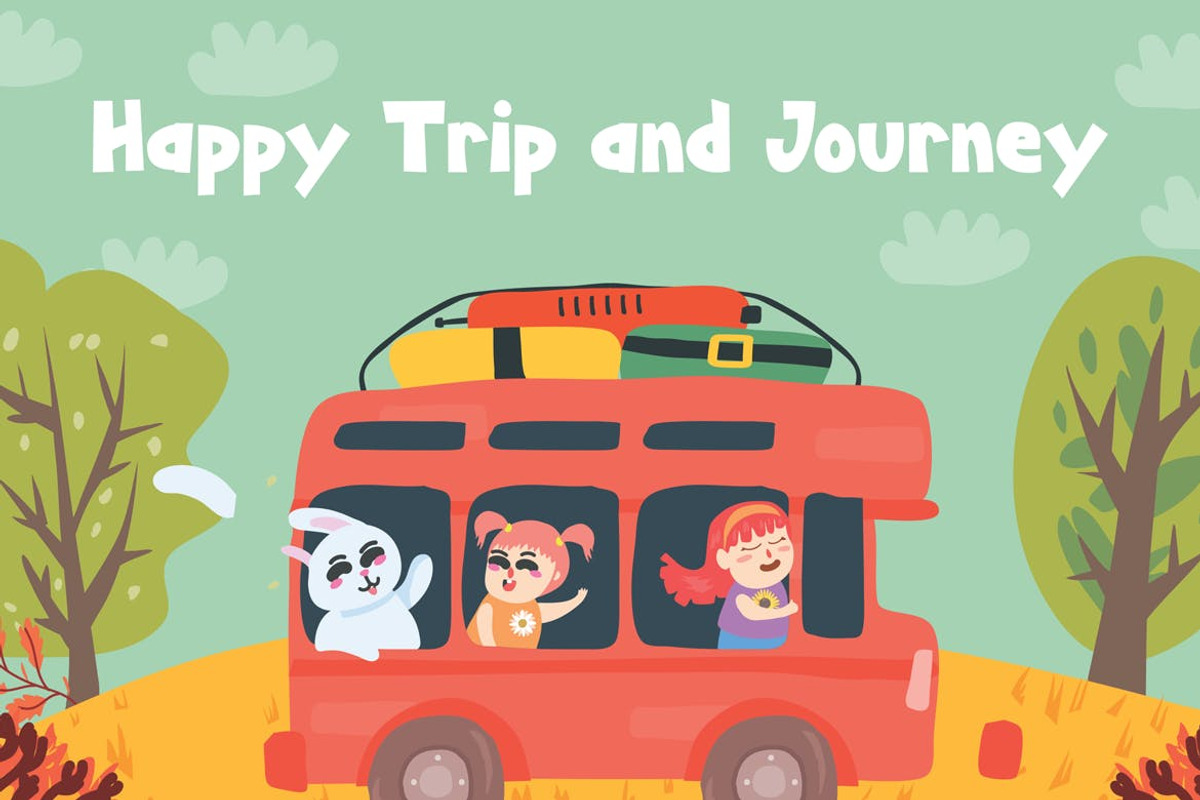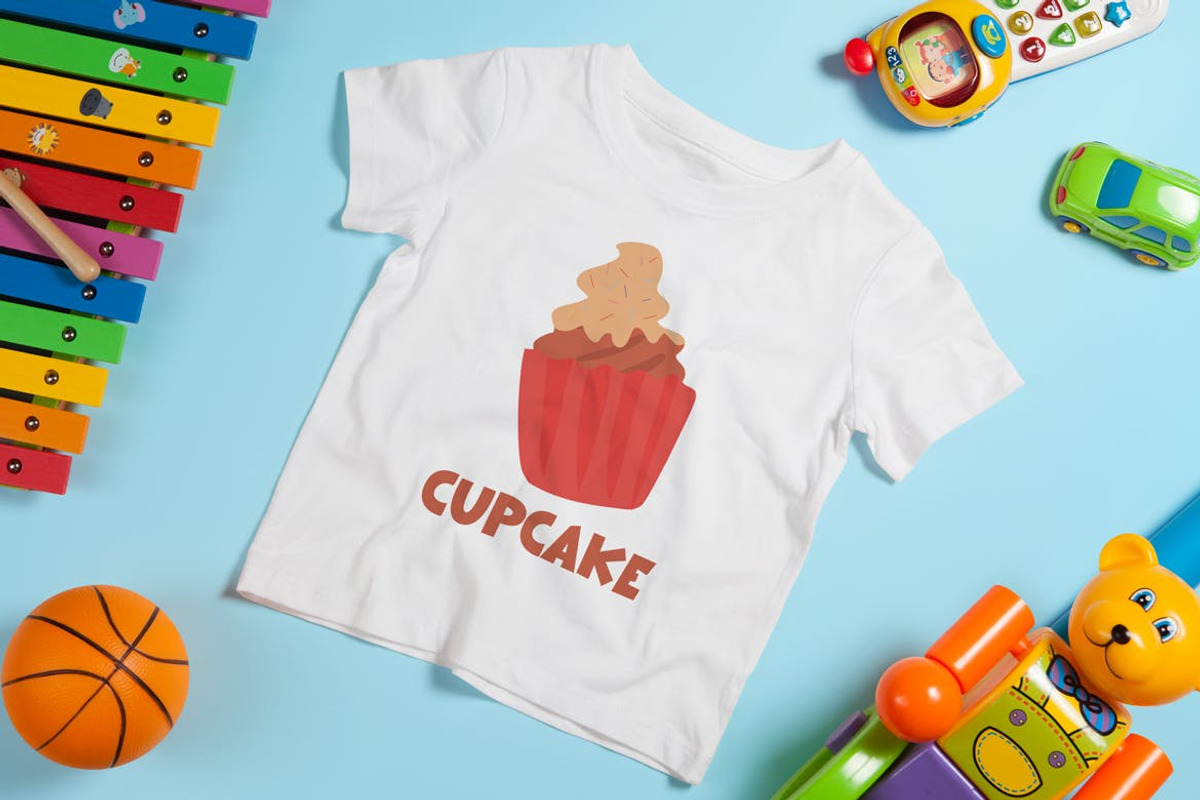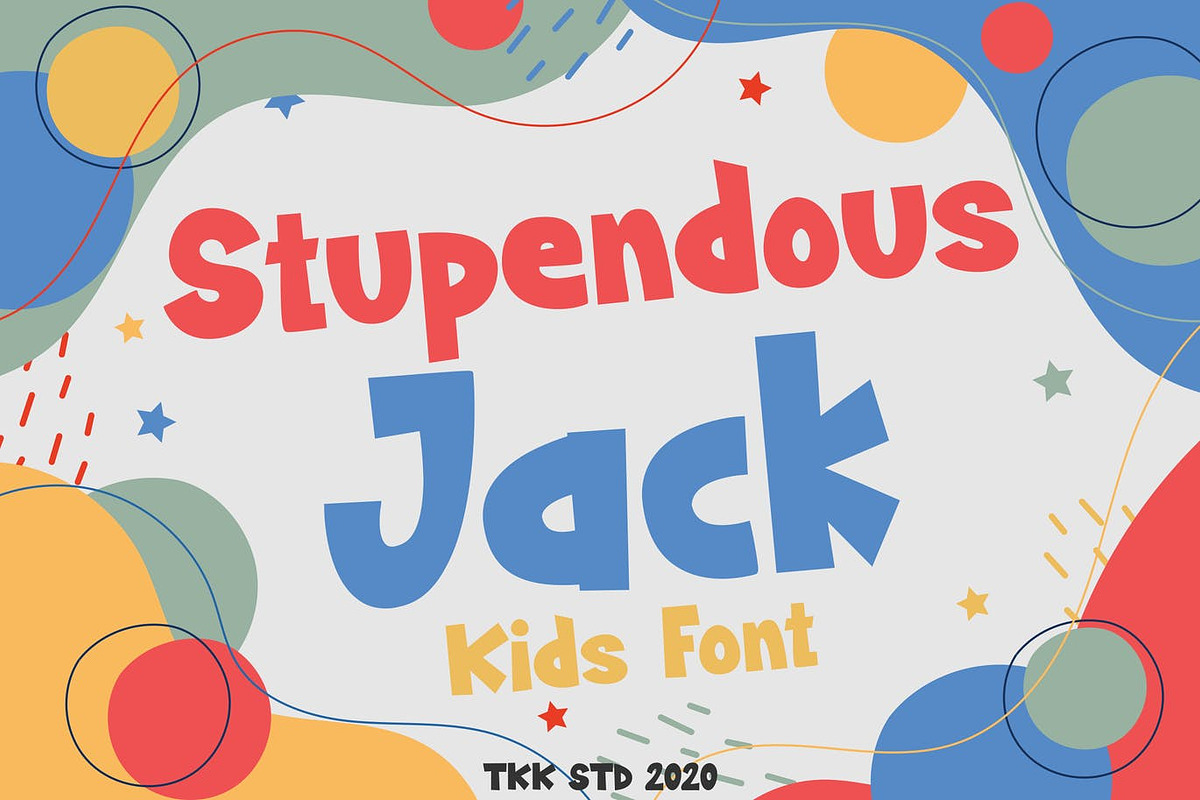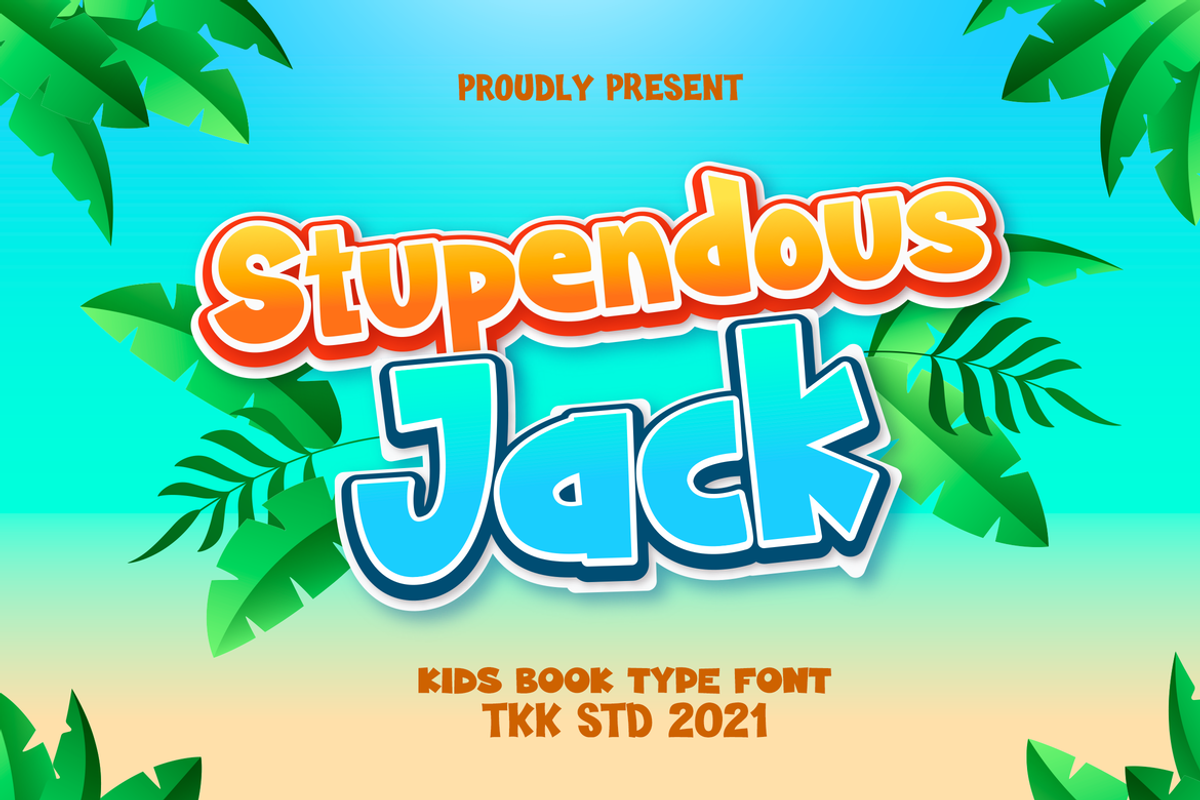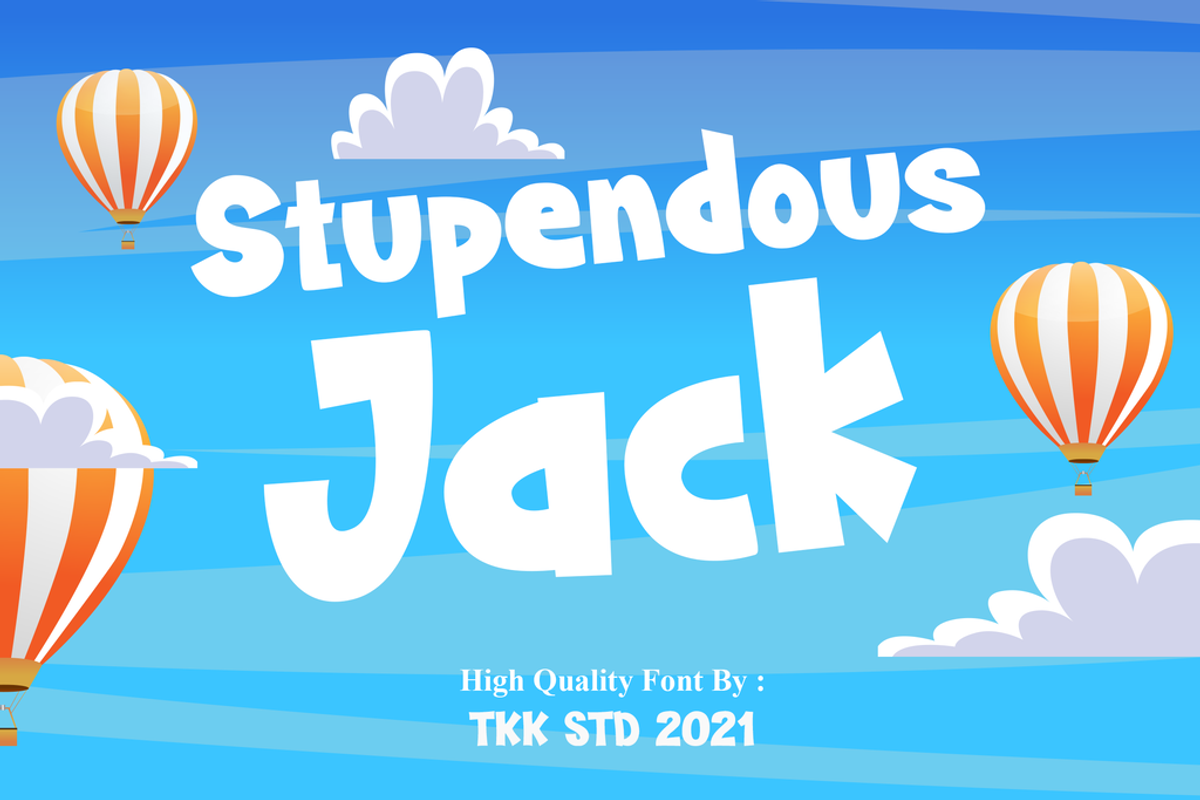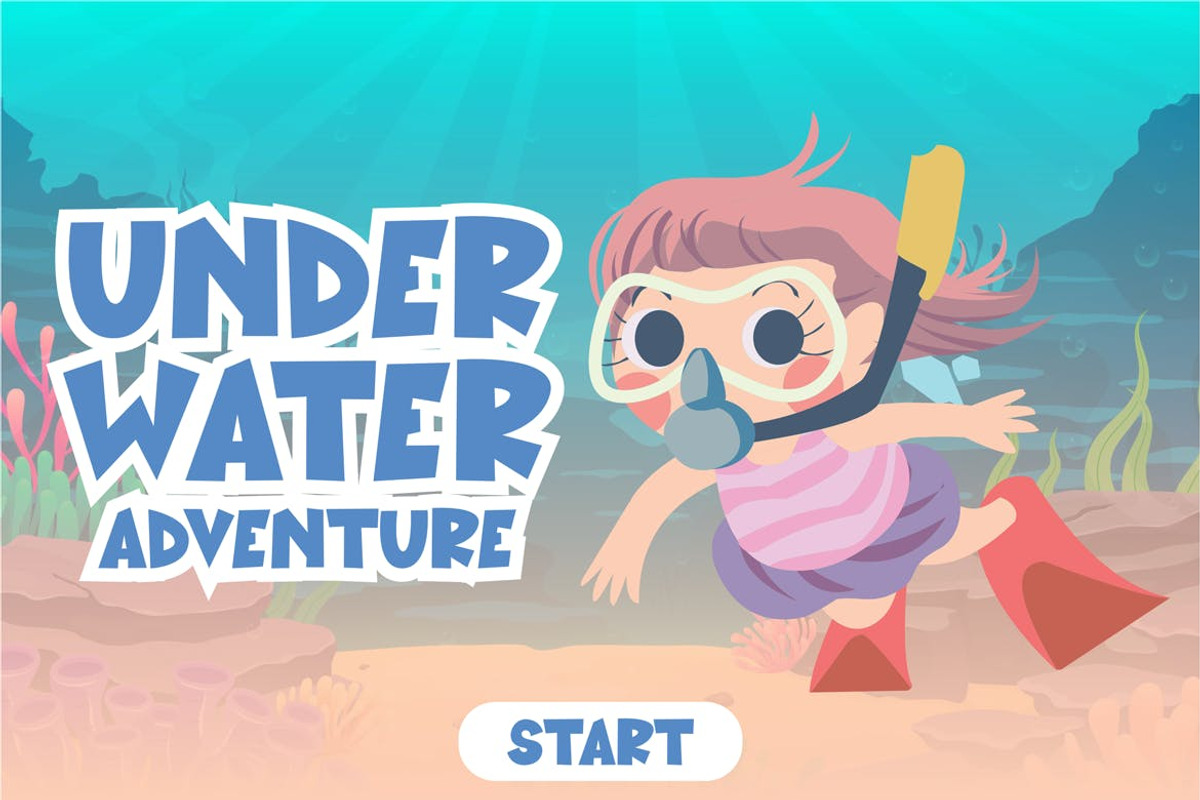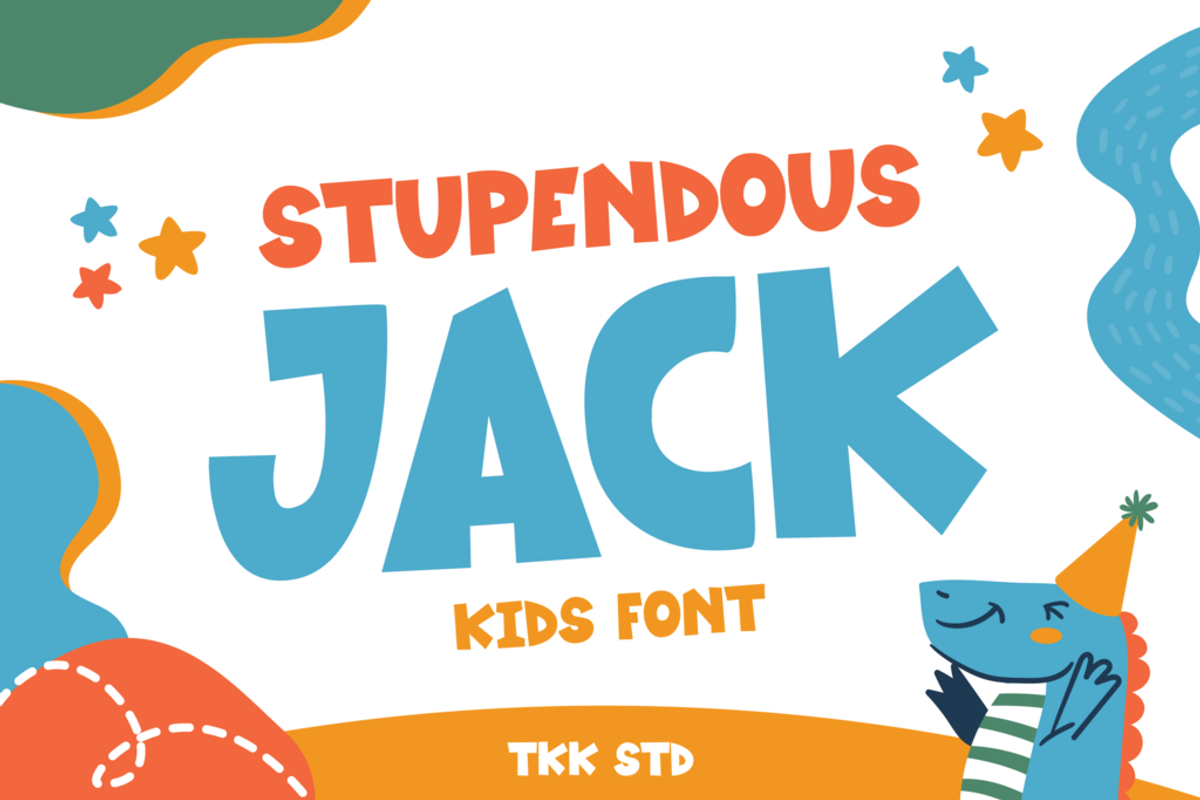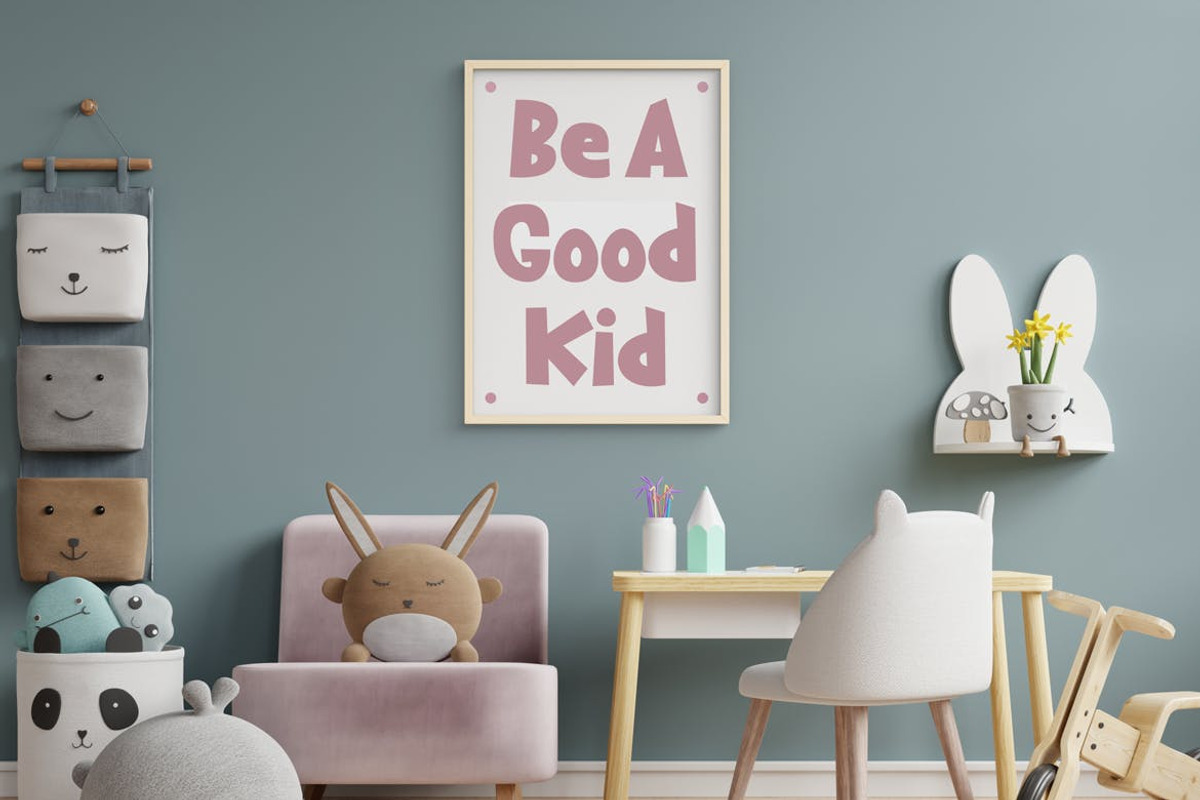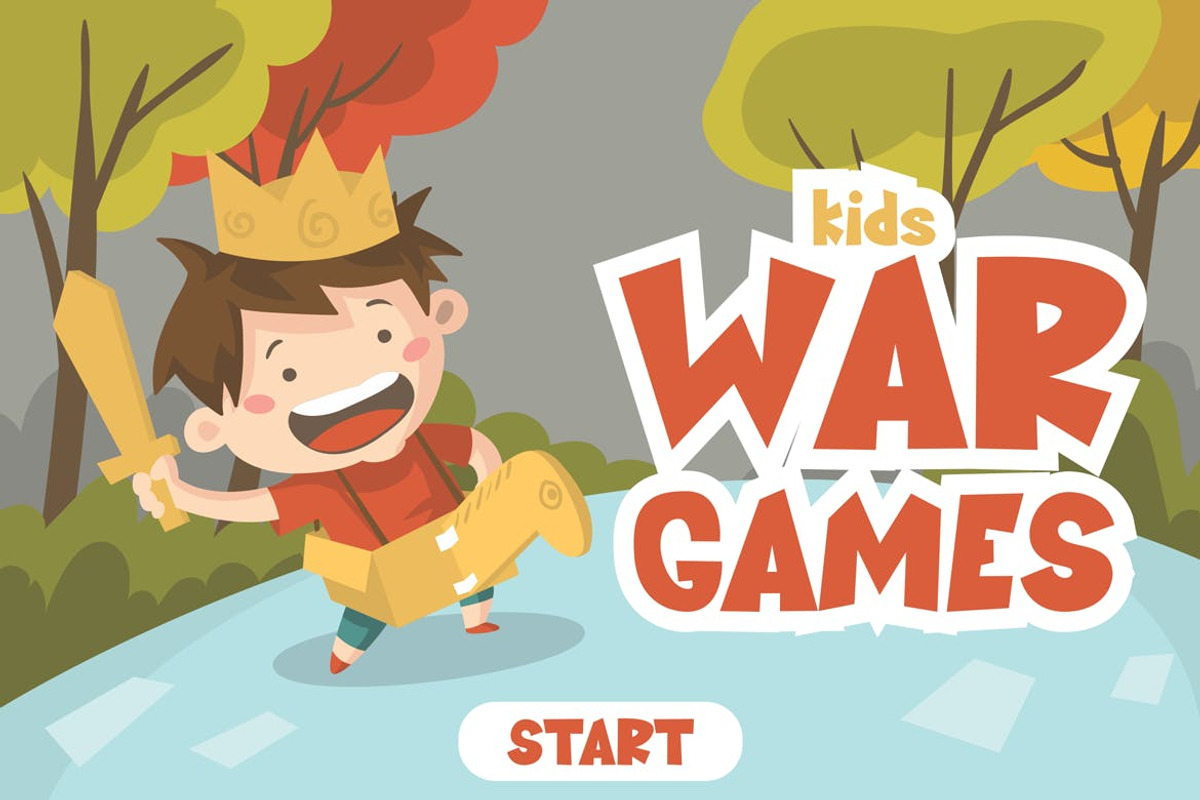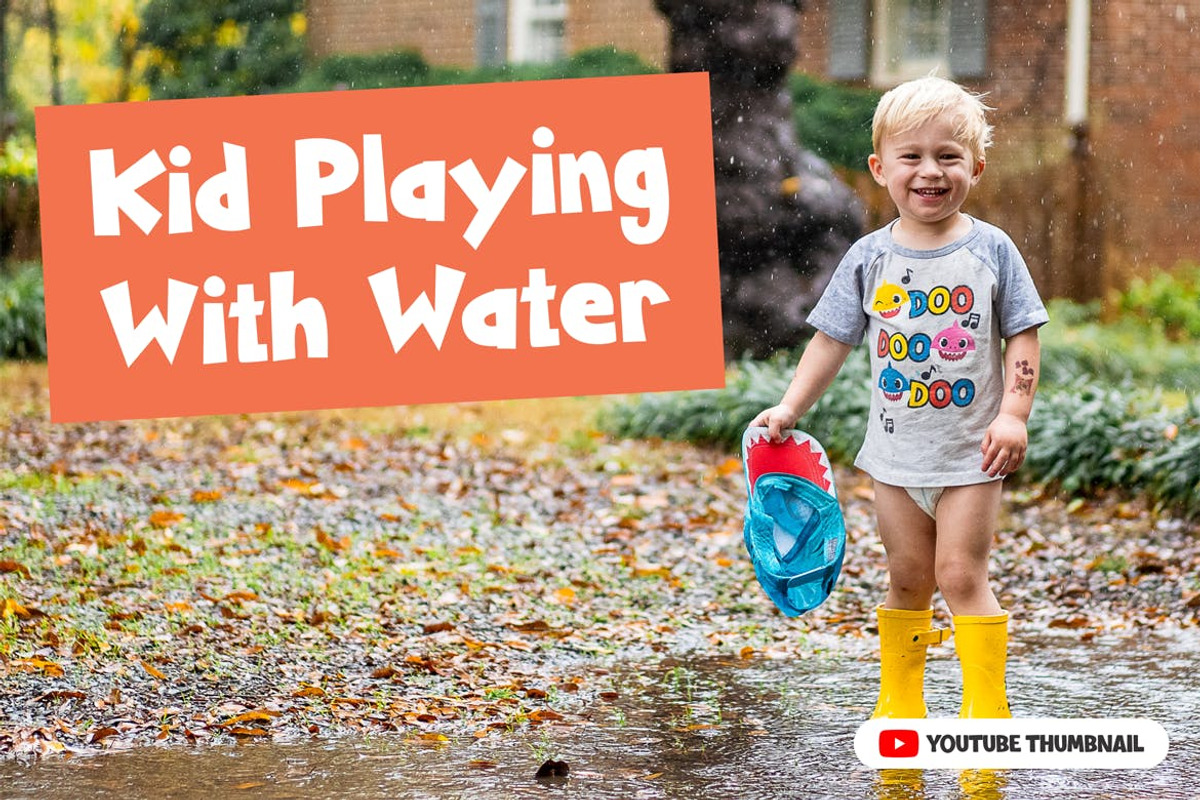
Stupendous Jack - Kids Font
Stupendous Jack kids font having a bold shape with funky baseline and funny vibe will make Stupendous Jack emphasize every word you put on the screen.
Suit perfectly for Online Games, poster, movie title, fast food menu, magazine, youtube covers, youtube thumbnails, social media page covers and so on…